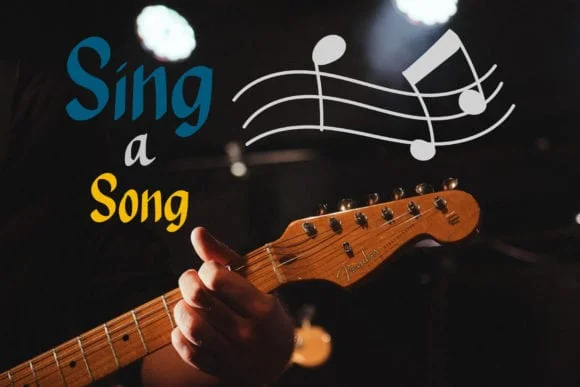
Sing A Song Font
The Sing A Song Font is perfect for playful branding, children’s books, greeting cards, posters, and cheerful social media graphics. Its whimsical, hand-drawn style brings a fun and lively personality to any design, making it ideal for projects that want to feel joyful and approachable.
What makes the Sing A Song Font Free Download so exciting is its charming, melodic design. Each letter feels expressive and full of character, giving your text a warm, friendly vibe that instantly connects with viewers. It’s a font that transforms ordinary words into a playful visual melody.
The Sing A Song Font family includes multiple styles such as Regular, Bold, Italic, and Shadow variations. These options allow designers to mix and match for dynamic, engaging typography that maintains a cohesive, whimsical aesthetic.